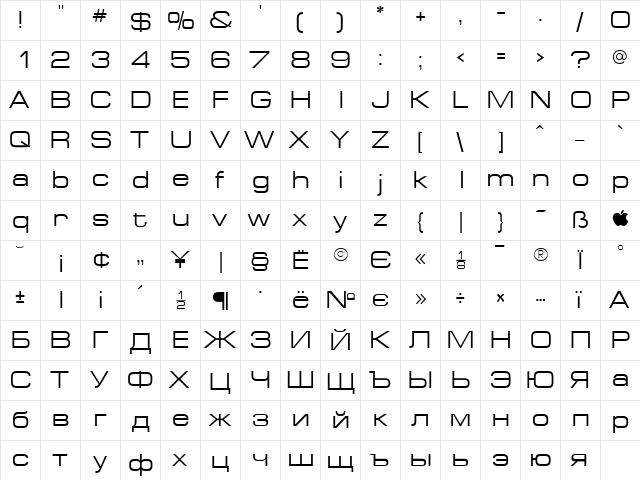
Europe_Ext Normal
Design Context for Europe_Ext Typeface
Europe_Ext is a composed and adaptable typeface that performs quietly and consistently across a wide range of design contexts.
Pro Tip: Pair Europe_Ext with a font of contrasting weight or personality to build a more expressive typographic hierarchy.